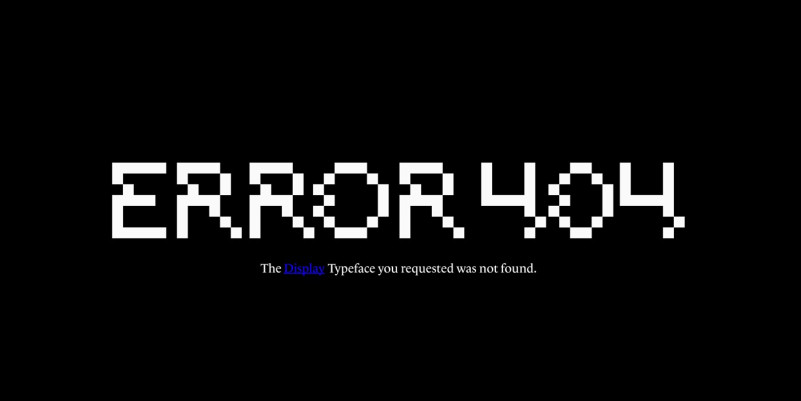
Error 404 Font
Error 404 Display Font is a pixel-style, grid-based, display typeface. The font is created as if there was an error, a kind of glitch, each character has an offset of one of the pixels. With digital characteristics, the font name is a direct reference to the browser 404 error message. Characterized by its simplicity, attention to detail, and original form. You can use it in a wide variety of projects. It gives many possibilities to create graphics.